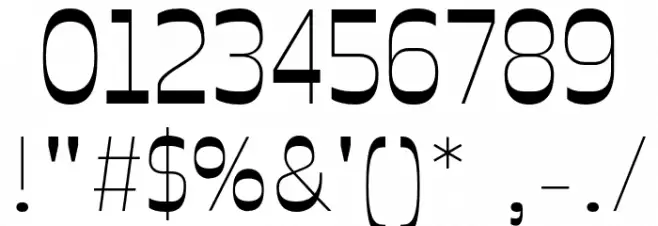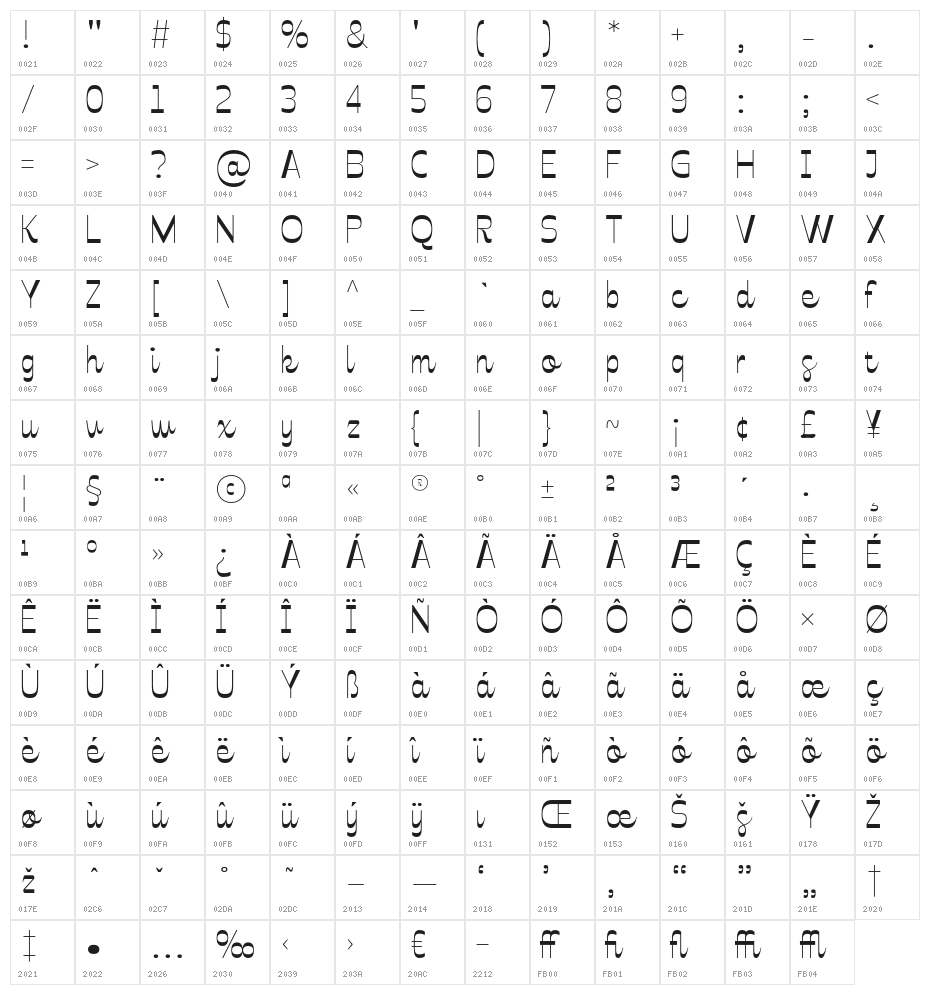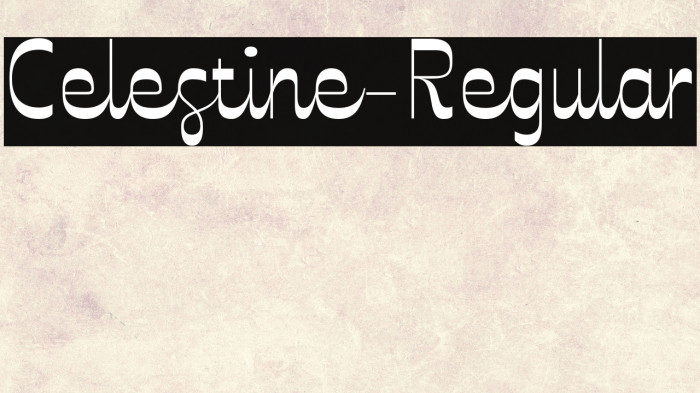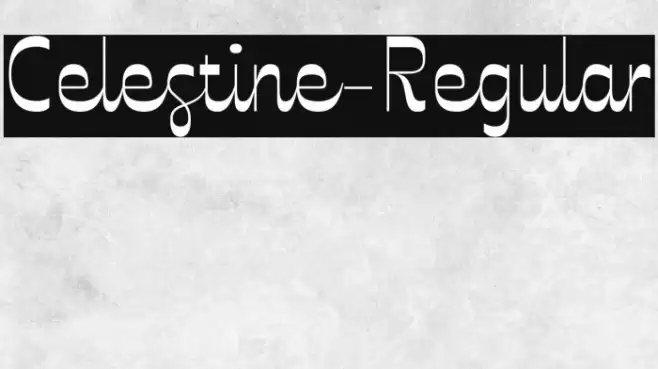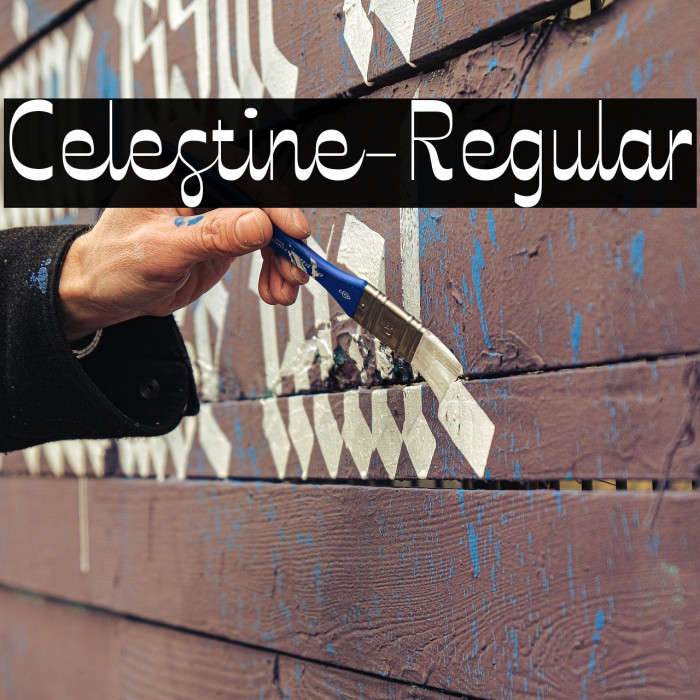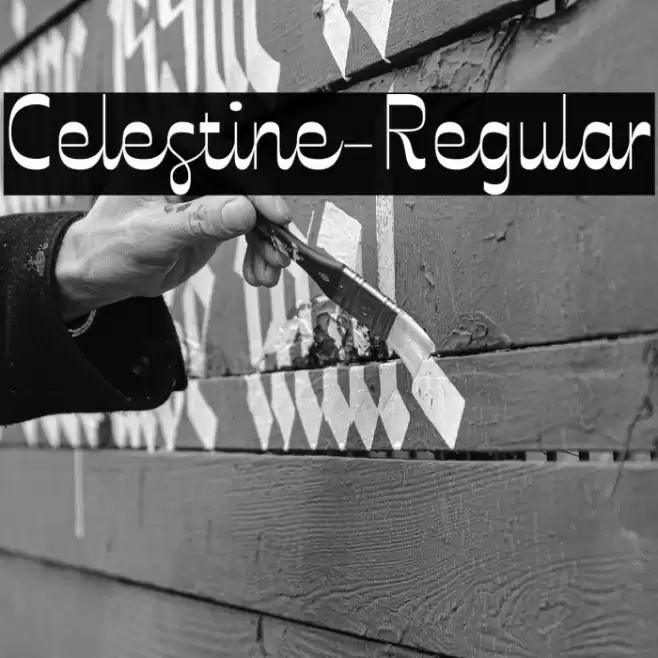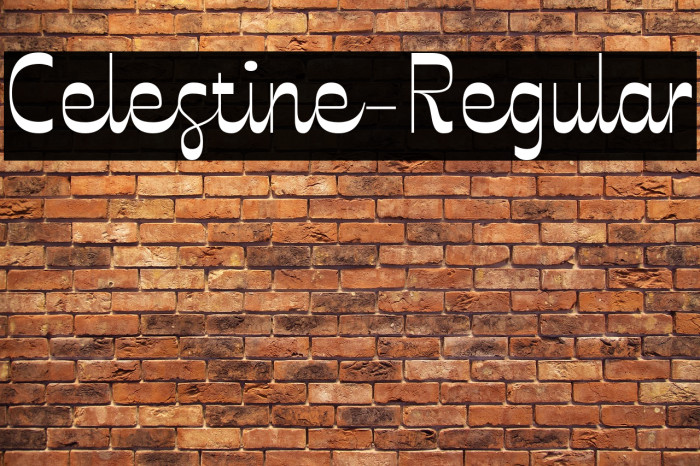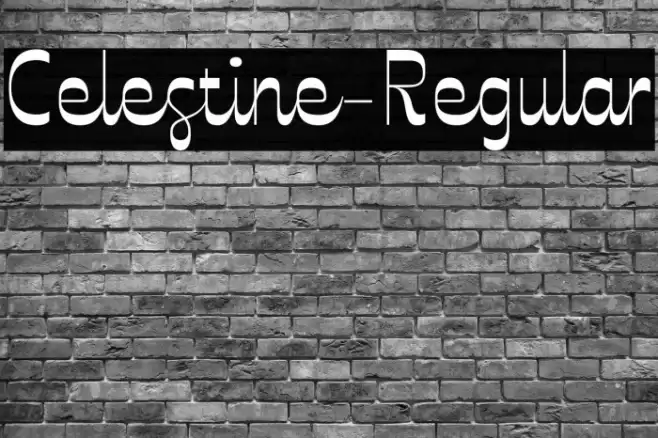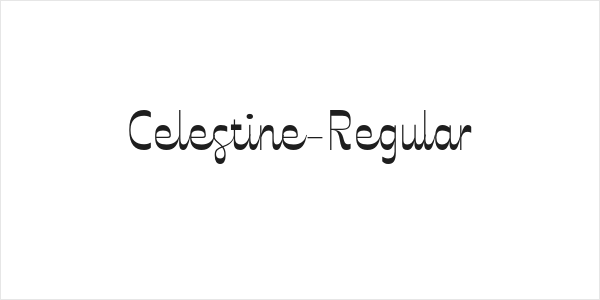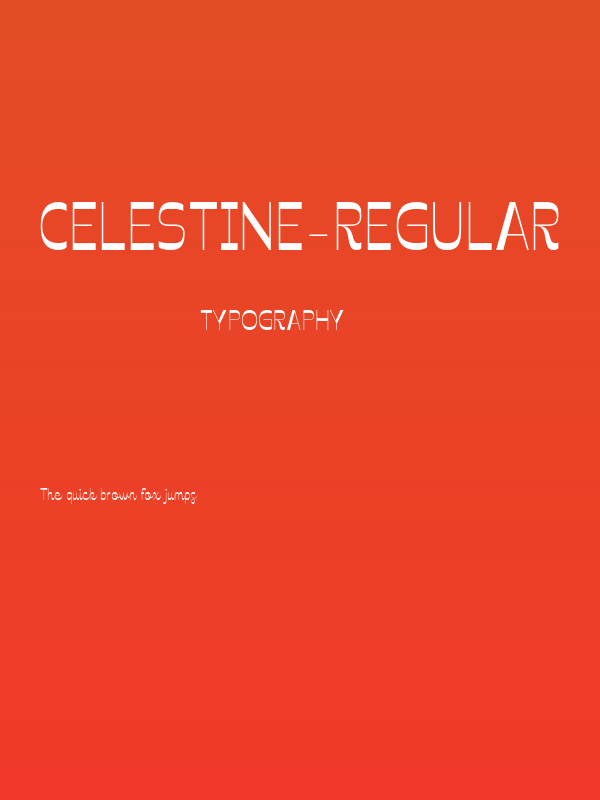
Celestine-Regular Font
Celestine-Regular Description
This font features a sleek and modern design with a blend of geometric and humanistic elements. The uppercase letters are bold and structured, with a slight curvature that adds a touch of elegance. The lowercase letters maintain a consistent flow, with rounded edges that soften the overall appearance. Numbers are clear and legible, designed to complement the letterforms. Special characters are well-integrated, maintaining the font's cohesive style. The font's versatility makes it suitable for a variety of design projects, offering a contemporary yet approachable aesthetic.